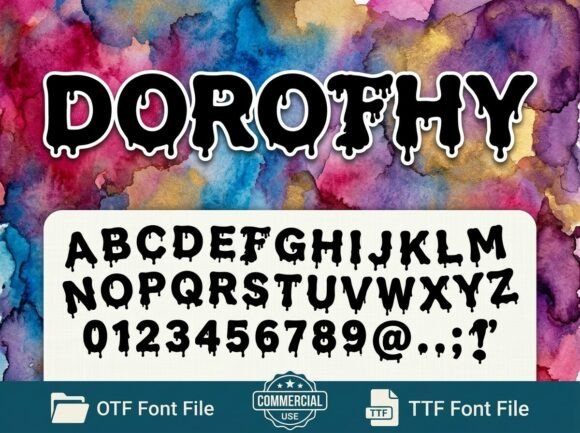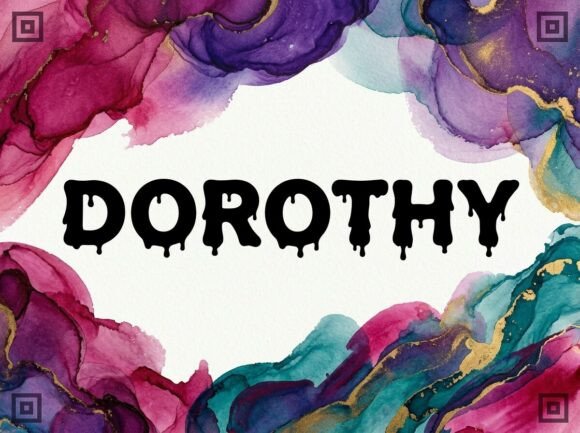
Introducing Dorothy Font: A Stunning Decorative Display Font
Are you tired of using the same old fonts for your creative projects? Look no further than Dorothy Font, a unique and artistic display font that’s sure to turn heads. Designed to be the center of attention, this font features a strong visual personality and versatile design that’s perfect for creators who want to break away from the ordinary.
What Makes Dorothy Font So Special?
Dorothy Font is a decorative display font that’s specifically designed for high-impact headlines, logos, and decorative initials. With its unique artistic elements and strong visual personality, this font is perfect for creators who want to make a statement. Whether you’re working on a bold headline, artistic logo, or creative packaging, Dorothy Font is the perfect choice.
Key Features of Dorothy Font
- ALL-CAPS (Uppercase Only) Design: This font is specifically designed for high-impact headlines, logos, and decorative initials where every letter is a work of art. Please note that it does not include lowercase letters.
- Versatile Design: Perfect for bold headlines, artistic logos, and creative packaging, while maintaining a professional and polished finish.
Why Choose Dorothy Font?
There are many reasons why designers and crafters should choose Dorothy Font for their creative projects. Here are just a few:
- Stand Out from the Crowd: With its unique artistic elements and strong visual personality, Dorothy Font is sure to help your creative project stand out from the crowd.
- Professional and Polished Finish: Despite its bold and decorative design, Dorothy Font maintains a professional and polished finish that’s perfect for any creative project.
How to Use Dorothy Font
Dorothy Font is perfect for a wide range of creative projects, including:
- Headlines and Titles: Use Dorothy Font to create bold and eye-catching headlines and titles that grab attention.
- Logos and Branding: Create a unique and memorable logo or brand identity with Dorothy Font.
- Packaging and Labels: Use Dorothy Font to add a touch of personality and style to your packaging and labels.
- Art and Design Projects: Dorothy Font is perfect for any art or design project that requires a bold and decorative font.
If you’re looking for a unique and artistic display font that’s sure to turn heads, look no further than Dorothy Font. With its strong visual personality, versatile design, and professional and polished finish, this font is perfect for creators who want to break away from the ordinary. So why wait? Download Dorothy Font today and start creating stunning creative projects that grab attention!